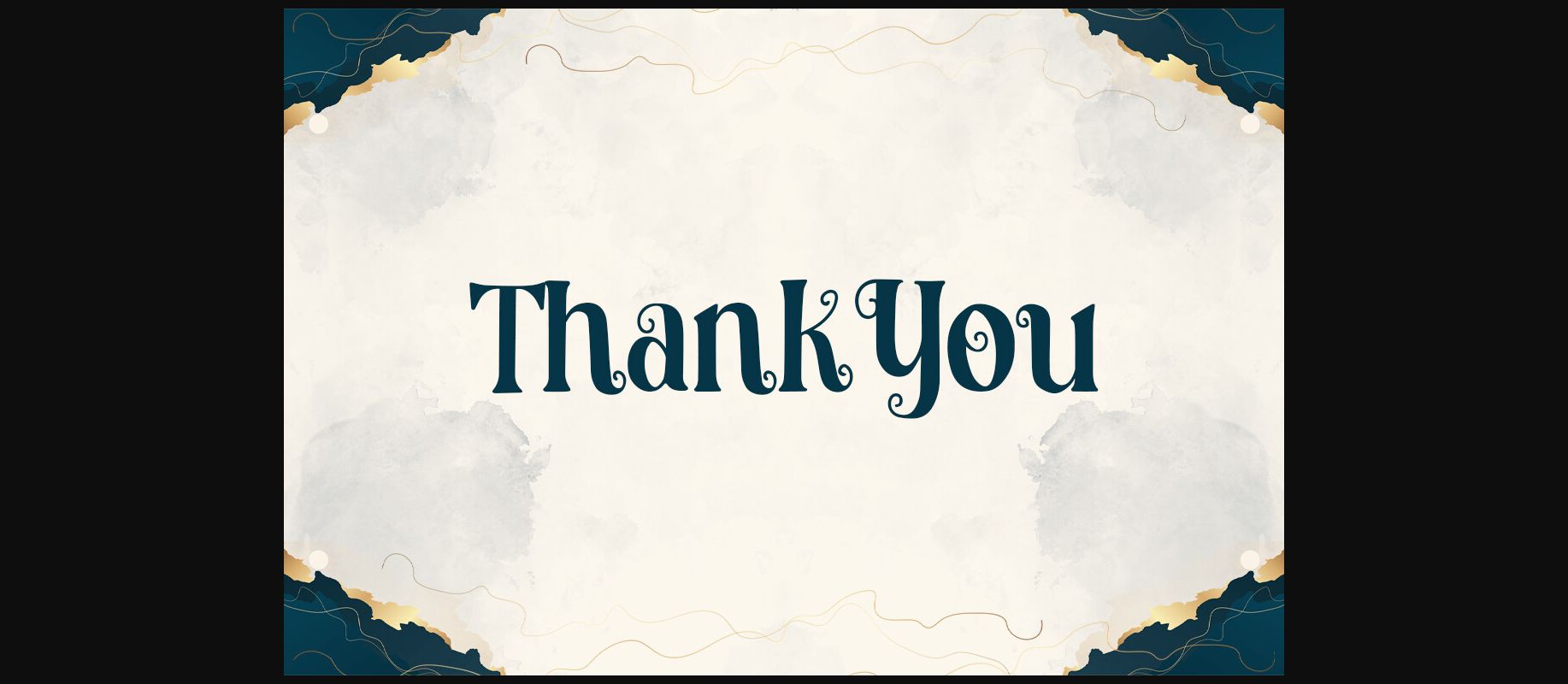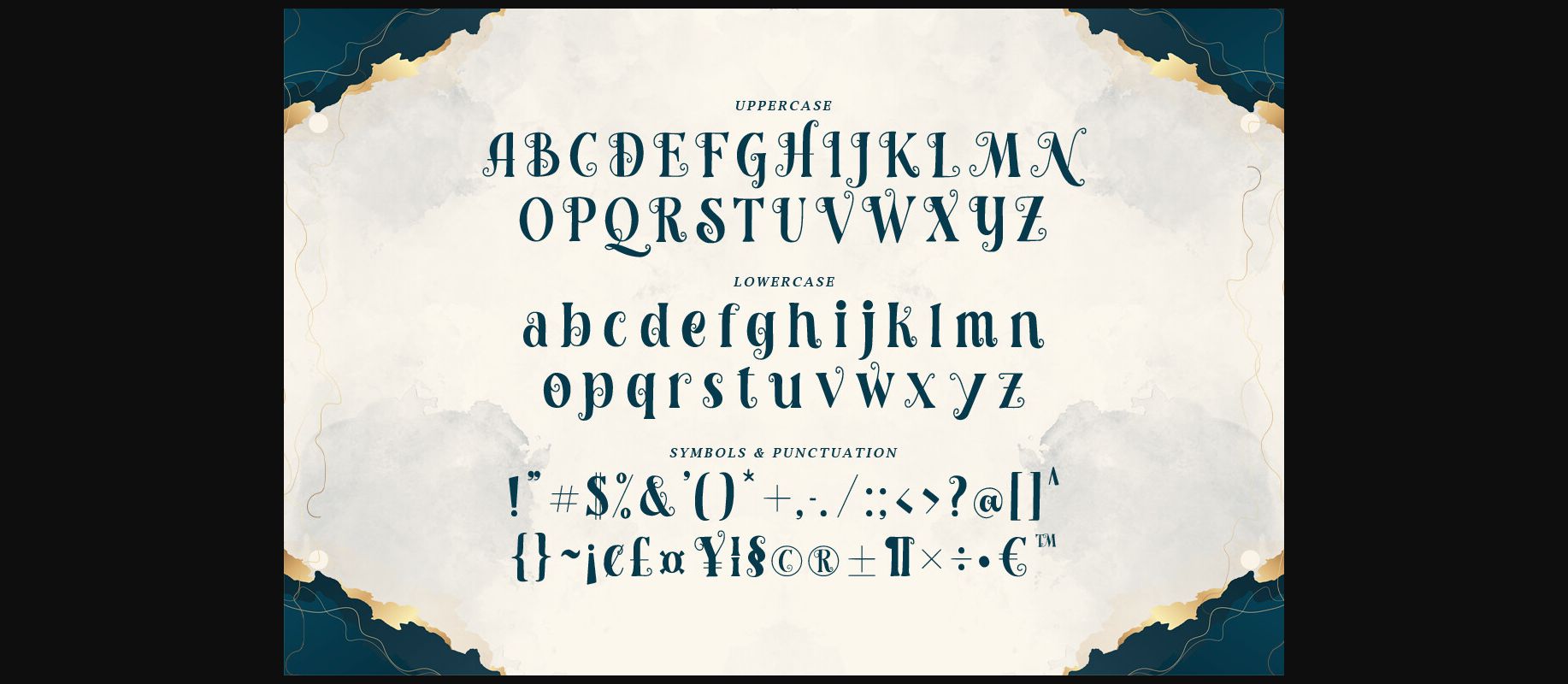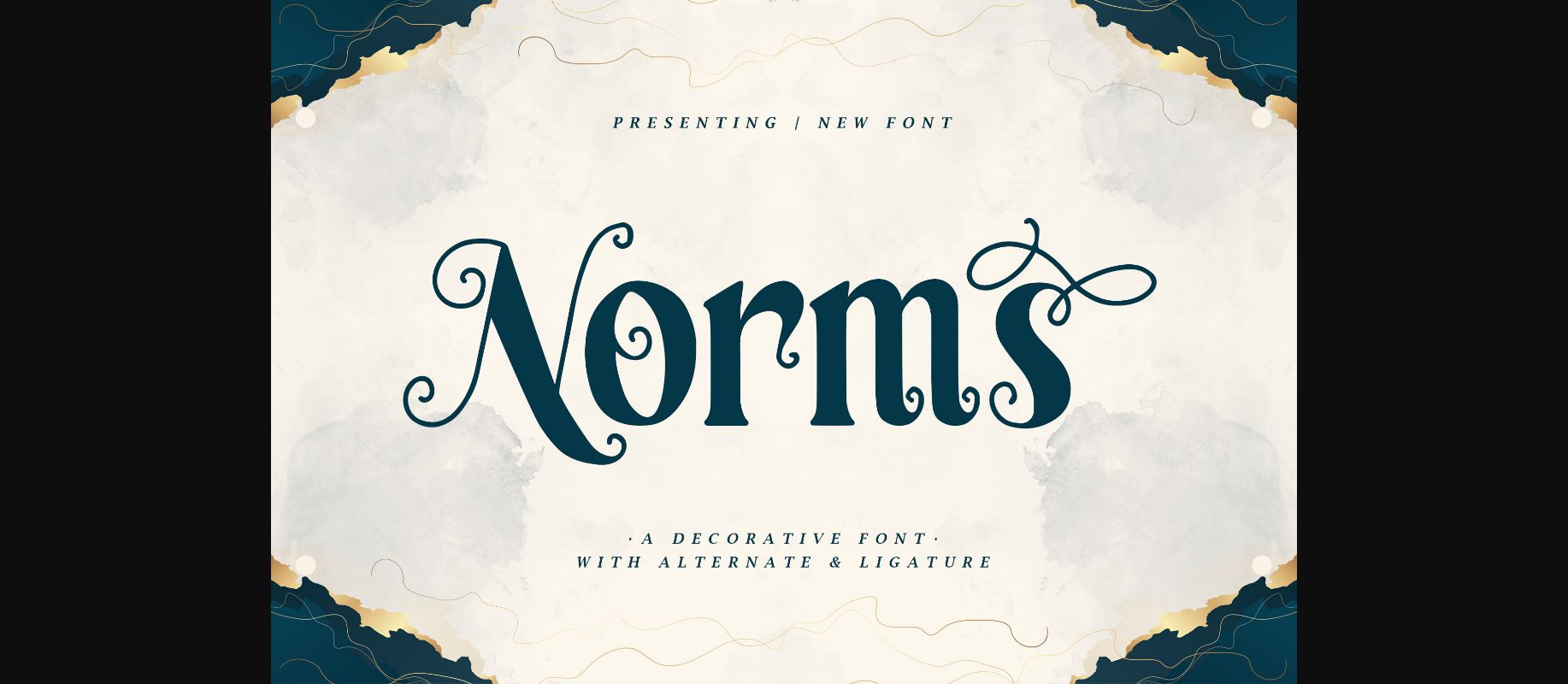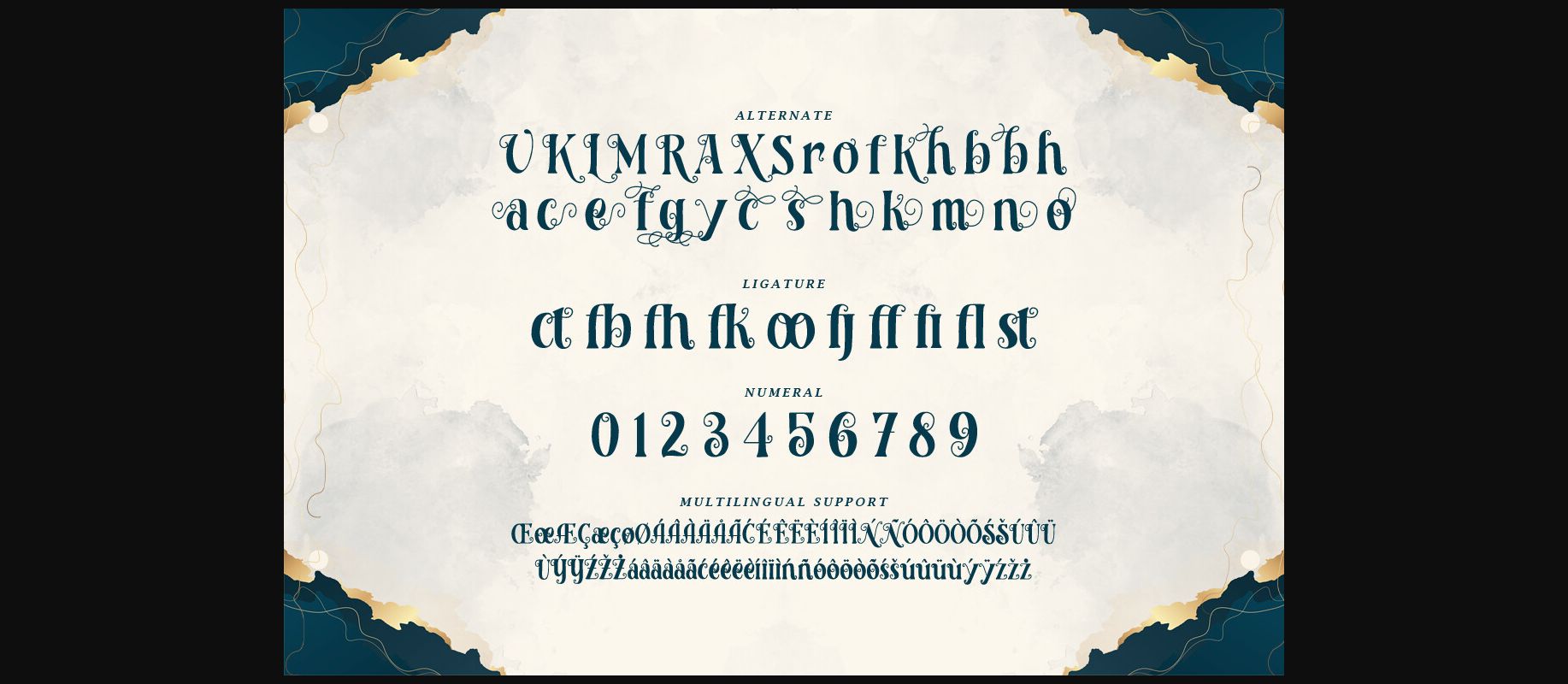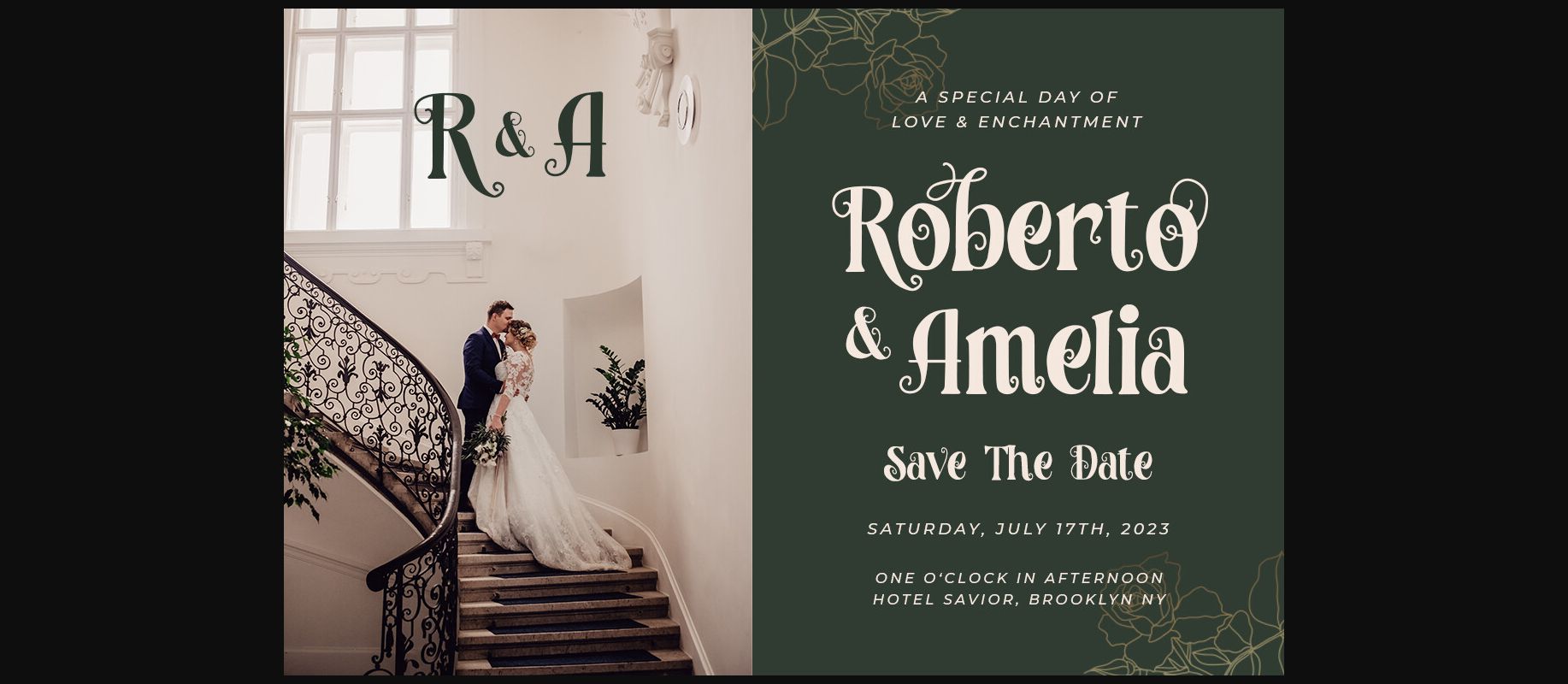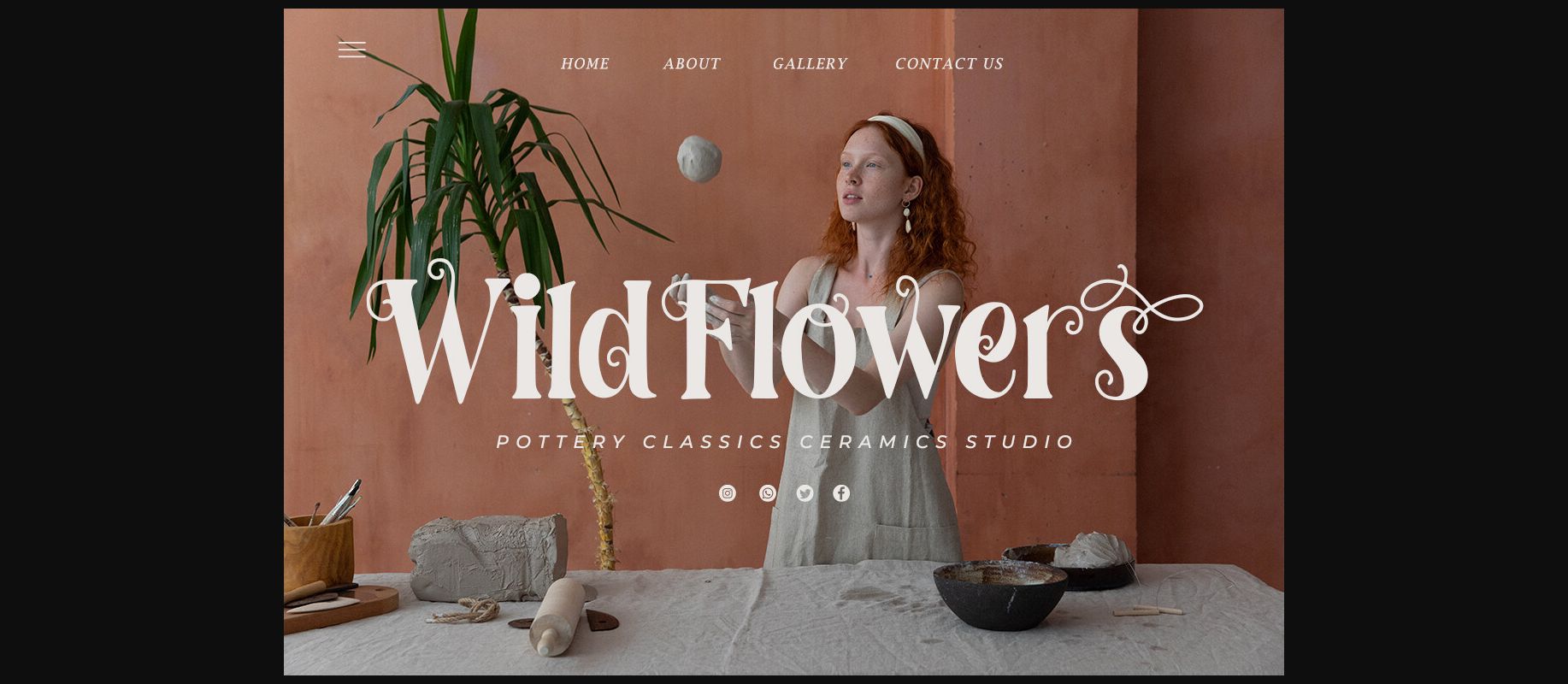
About Norms Font
Unleash your creativity with “Norms” – a decorative font that brings a touch of whimsy and charm to your designs. Embrace the versatility of “Norms” as it effortlessly transforms your designs. Whether you’re creating imaginative posters, eye-catching logos, joyful greeting cards, or artistic illustrations, this font will captivate your audience with its unique and decorative style.